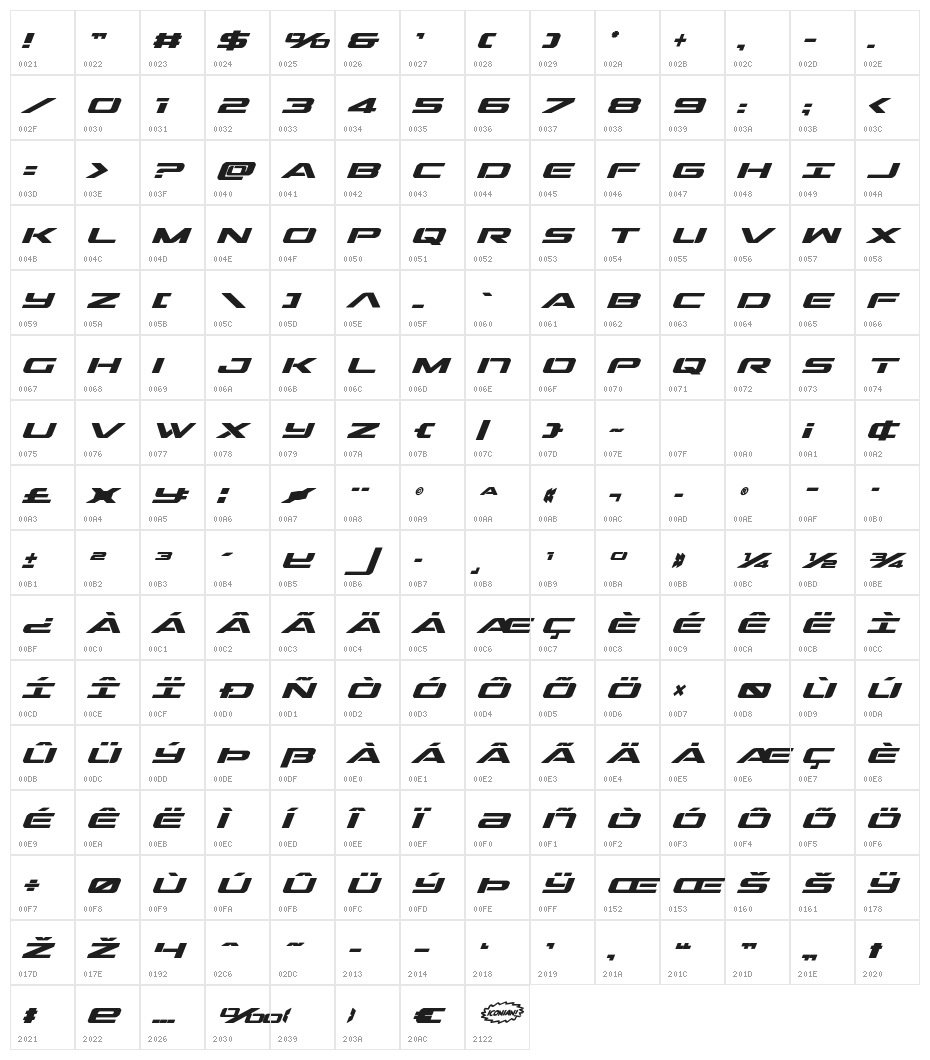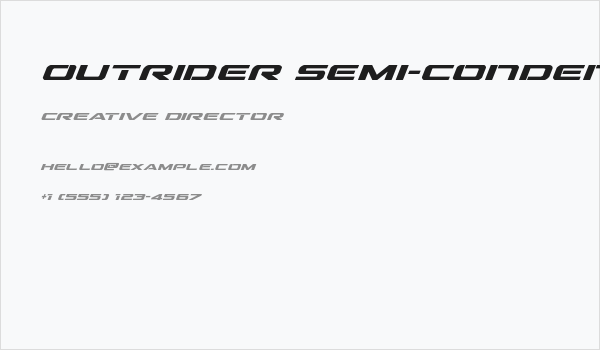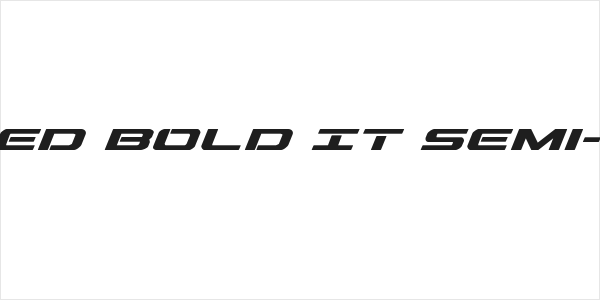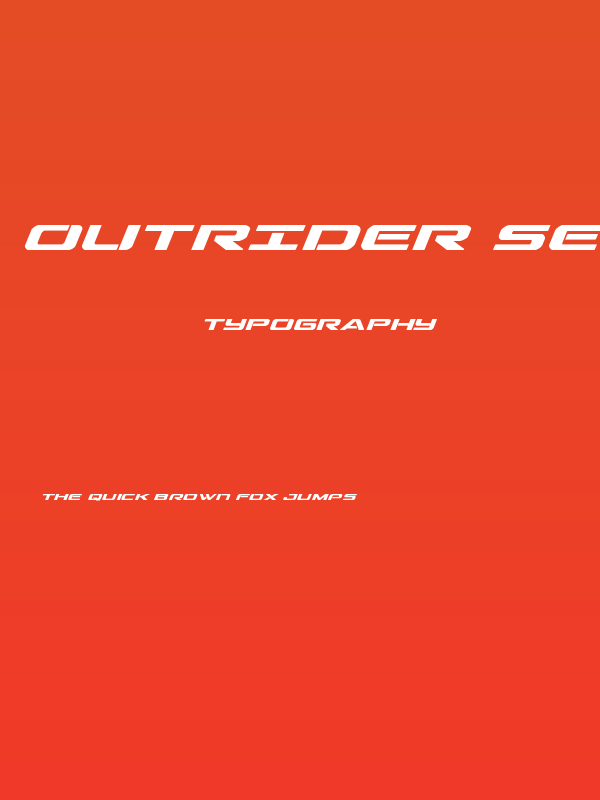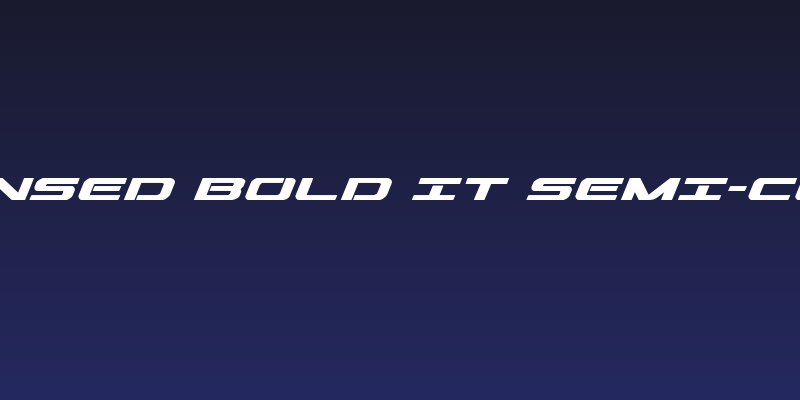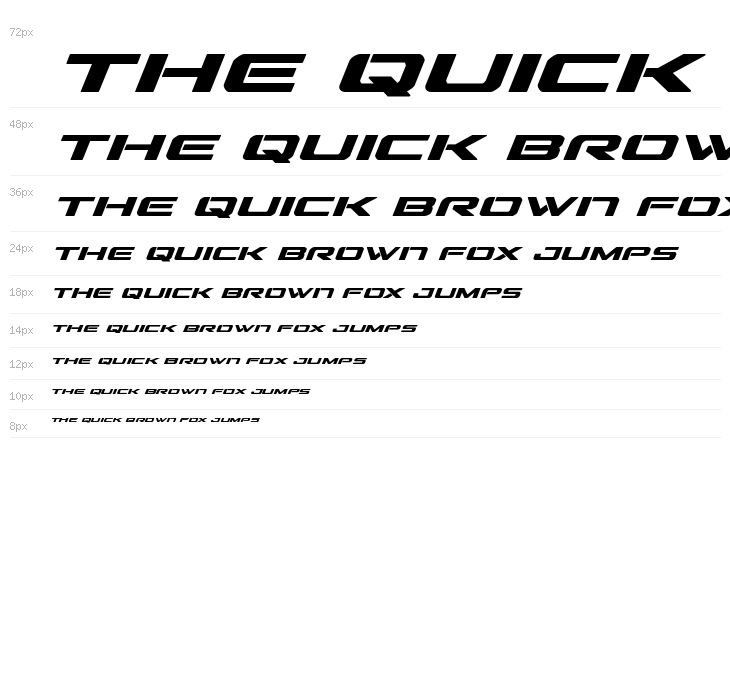
Outrider Semi-Condensed Bold It Semi-Condensed Bold Italic Font
Outrider Semi-Condensed Bold It Semi-Condensed Bold Italic Description
This font features a bold and italicized style with a semi-condensed width, giving it a dynamic and modern appearance. The characters are slanted, enhancing the italic effect, and the bold weight adds a strong presence. The design is sleek and futuristic, with sharp angles and clean lines that create a sense of movement and speed. The spacing between characters is tight, which contributes to its compact and efficient look. The high contrast in stroke thickness further emphasizes its boldness, making it suitable for attention-grabbing applications.
| Use Case | Logos, Headlines |
| Proposed Projects | Ideal for use in technology branding, sports team logos, automotive advertisements, and futuristic design projects. |